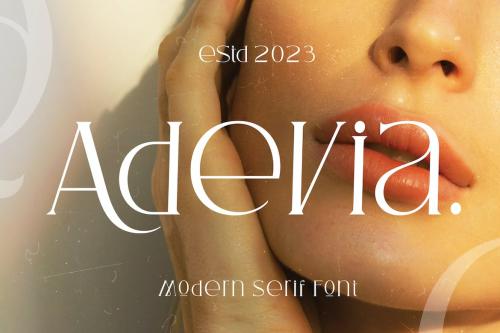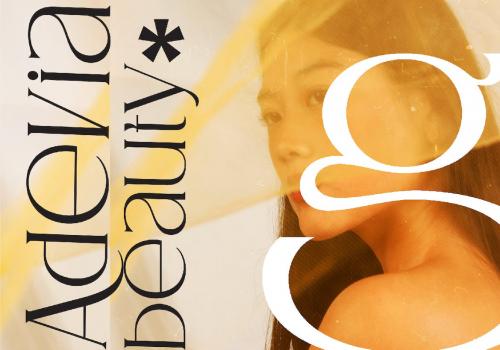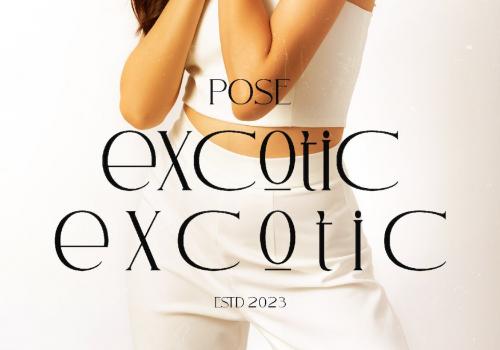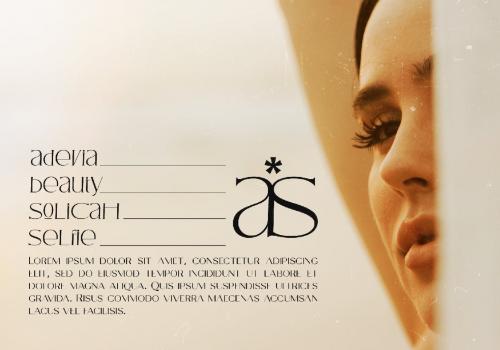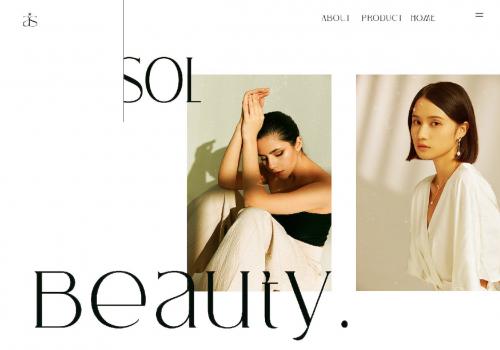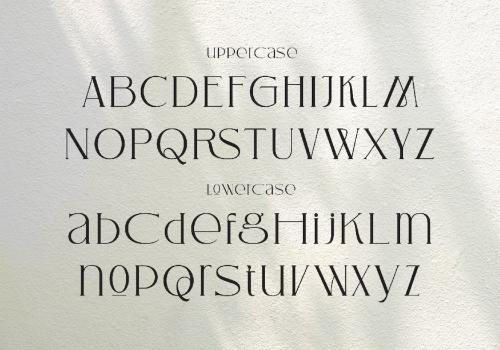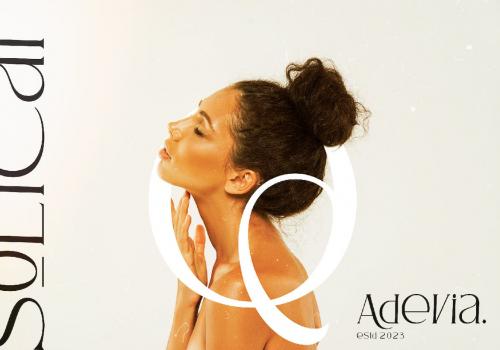
阿德维亚现代衬线字体
With the font "Adevia," you will bring a touch of elegance and luxury to any of your design projects. This font is specially designed to meet the needs of designers looking for an elegant handwriting style with a modern touch.
You can present an impression of unrivaled luxury in each of your design creations. Add a touch of elegance to your projects and create unforgettable masterpieces with this font. Get "Adevia" now and explore your creativity with more style.
* Numberial and Functional
* Alternate and ligature
* International Multilinggual Support